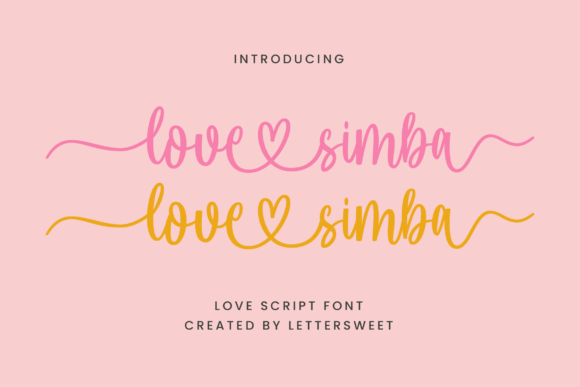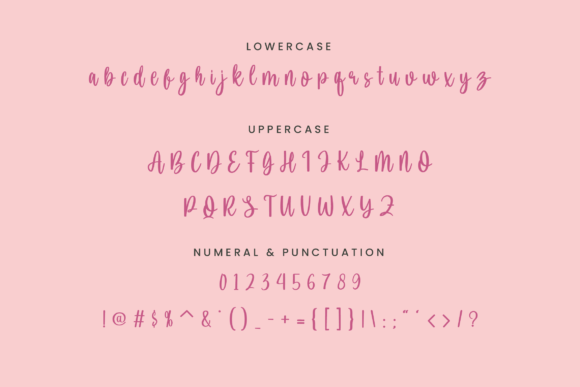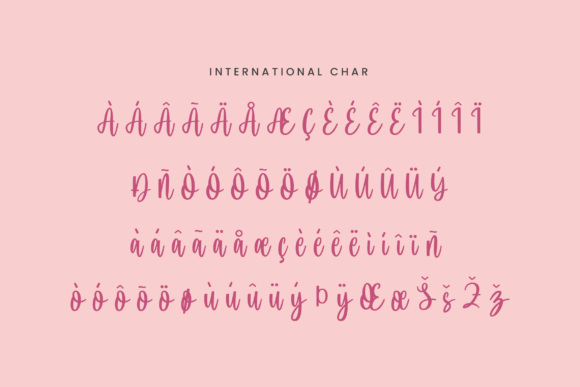
About Love Simba Font
Introducing Love Simba, a delicate, elegant, and flowing handwritten font that brings beauty and balance to your creative projects. With its well-crafted characters, Love Simba is designed to match a wide range of designs, adding a touch of sophistication to your work.
The flowing and elegant nature of Love Simba makes it a versatile choice for various design applications. Imagine it on wedding invitations, where it brings a sense of delicacy and romance to the celebration. Picture Love Simba in branding or logo designs, where its well-balanced characters contribute to a polished and timeless identity.
The PUA encoding of Love Simba ensures easy access to all glyphs and swashes, providing you with the flexibility to customize and personalize your designs. This feature allows you to add unique flourishes and details, enhancing the overall visual appeal of your projects.
Visualize Love Simba becoming a key element in your design toolkit, bringing your creative ideas to life with its delicate and elegant touch. Envision it on product packaging, where it adds a refined and sophisticated feel to your branding. Picture it on social media graphics or blog headers, where Love Simba’s flowing script creates a graceful and captivating presence.
In conclusion, Love Simba is not just a font; it’s a delicate and elegant design asset that elevates your creative projects. Download it today and experience how it transforms your designs into expressions of timeless beauty. Make Love Simba a cherished addition to your font collection, and let it be the key to unlocking a world of sophistication in your designs!